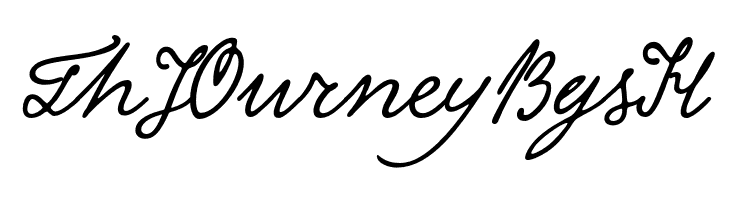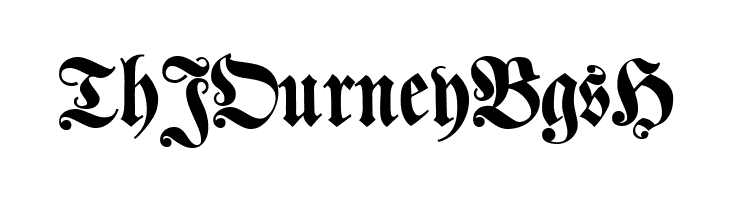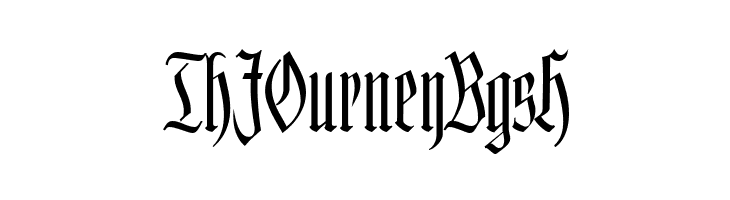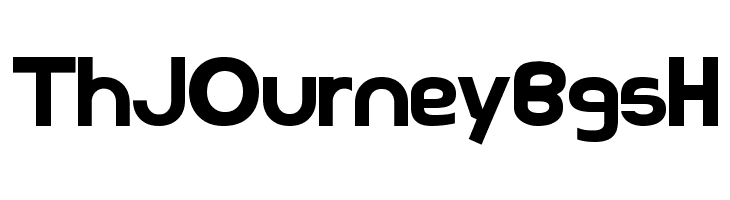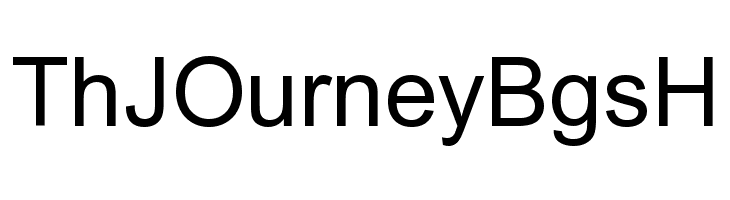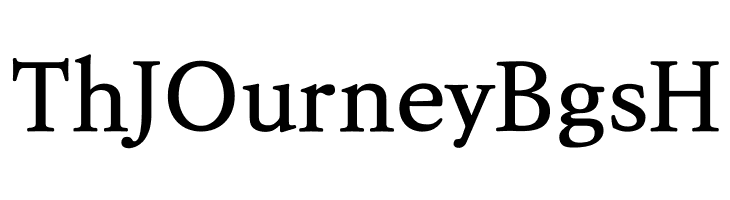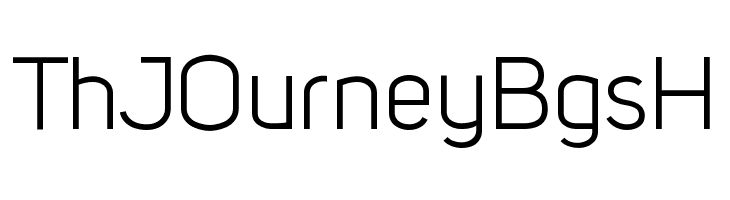
( Trisno Pamuji - trisnowman.wordpress.com )
A modern, geometric sans-serif font with clean lines and balanced spacing.
An ornate blackletter font with intricate, bold designs and historical flair.
A bold and ornate blackletter font with intricate details and historical elegance.
A classic blackletter font with ornate, angular lines and decorative serifs.
A classic blackletter font with ornate, high-contrast strokes.
( Fonts by Dmitry Rastvortsev, Henadij Zarechnjuk and Lukyan Turetsky - Personal-use only. Free font based on the handwriting of Taras Shnvchenko, the Ukrainian poet, artist and philosopher. )
A flowing, cursive script font with elegant, connected letters.
A bold, modern geometric font with rounded characters.
A bold, classic serif font with strong, well-defined characters.
A classic serif font with elegant, thin strokes and refined appearance.